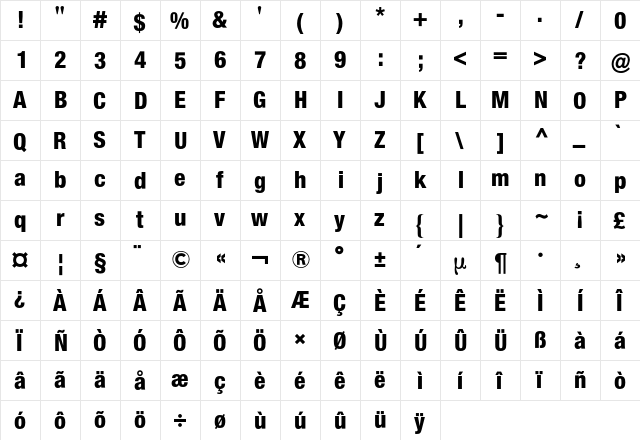
Neue Helvetica Condensed BQ Regular Font Preview
Neue Helvetica Condensed BQ Regular
Design Context for Neue Helvetica Condensed BQ Typeface
Neue Helvetica Condensed BQ offers clean, dependable letterforms without strong stylistic allegiance, making it a practical choice for designers who need flexibility. Its narrow stance lets it pack a punch even in space-constrained designs.